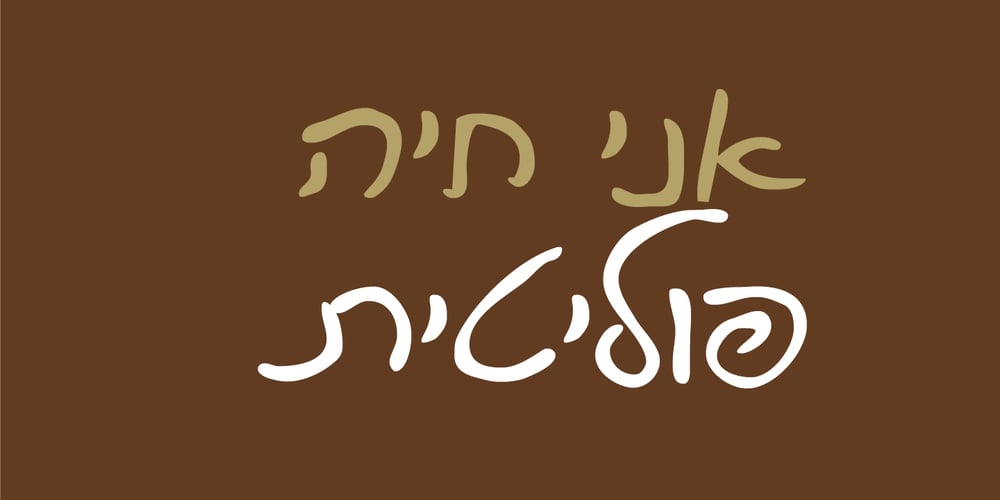
Leeorchik MF Font Family was designed by Leor Franko and published by Masterfont. Leeorchik MF contains 1 styles and family package options. Make your designs stand out with a fresh and clearly crafted handwriting.